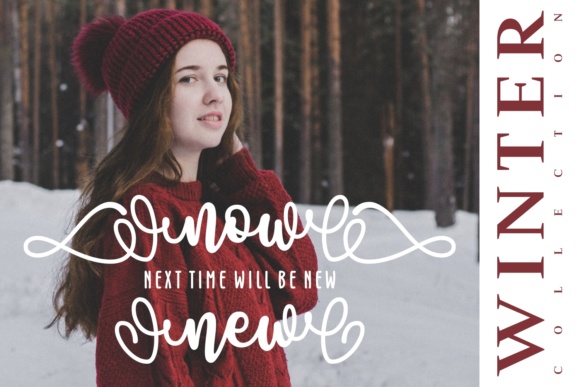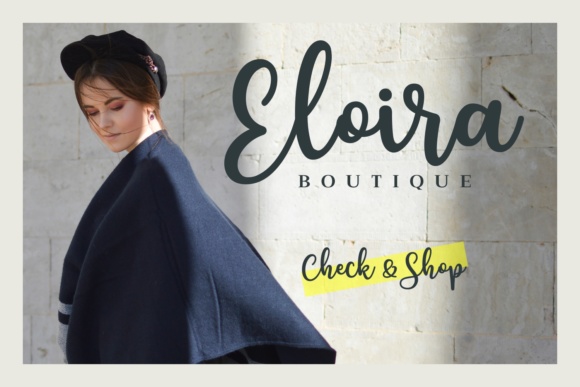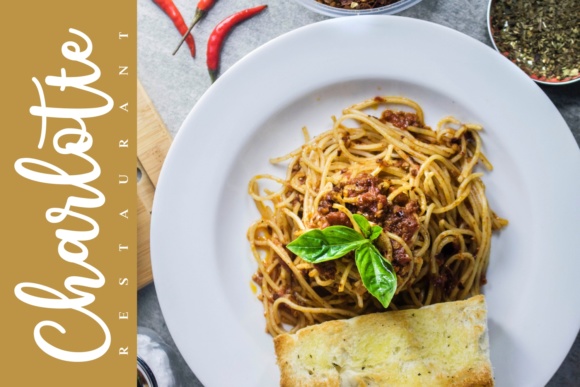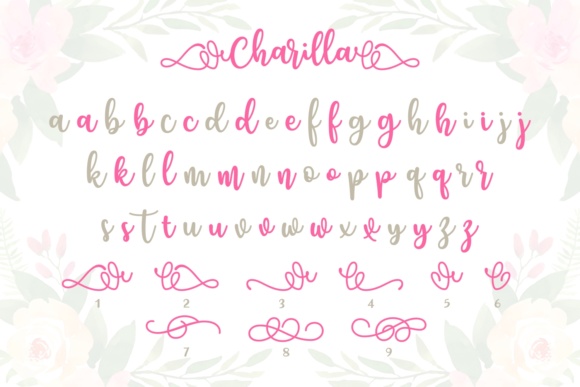
Charilla Font
About Charilla Font
Charilla is a gorgeous, classical calligraphy font with a modern twist. The Charilla has a nice round body with a medium thickness.
It’s perfect for making impressionable designs within seconds.